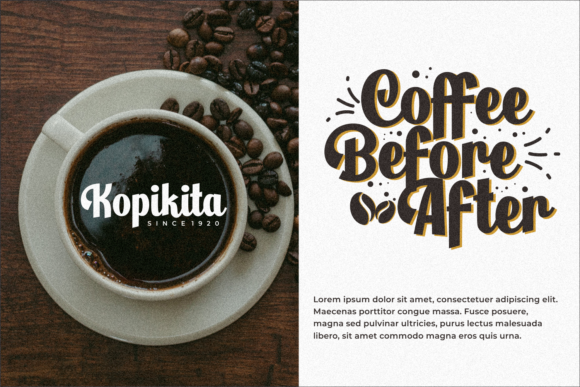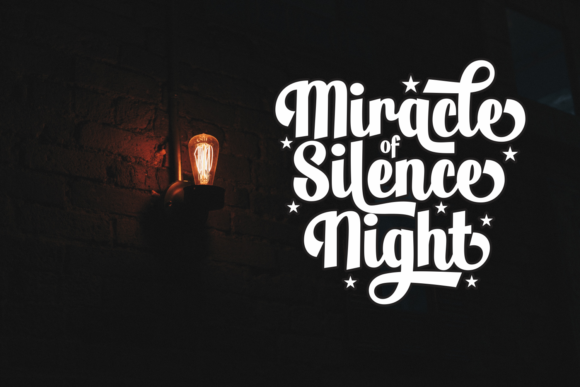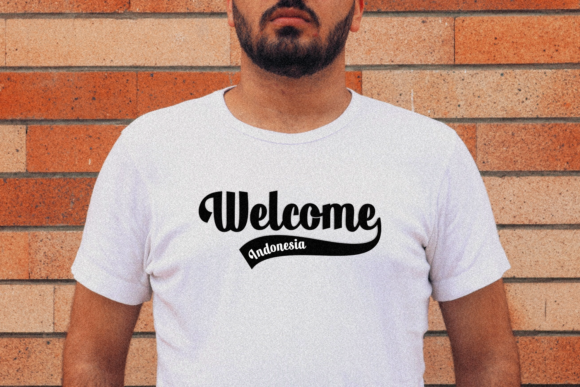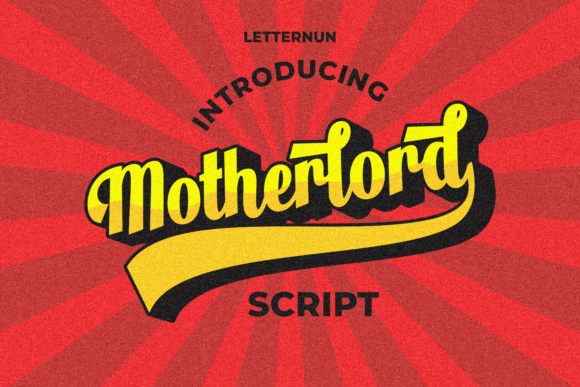
Introduction to Motherlord Font
Motherlord is a gorgeous and bold handwritten font, crafted to give your headlines and logotype projects a retro touch.
This font reads as strong, confident, and dynamic and can add tons of nostalgic character to your designs .
Key Features of Motherlord Font
Why Choose Motherlord Font?
Motherlord Font offers exceptional quality and versatility, making it a valuable addition to your design toolkit. Whether you’re creating for personal projects or commercial use, Motherlord Font delivers professional results.